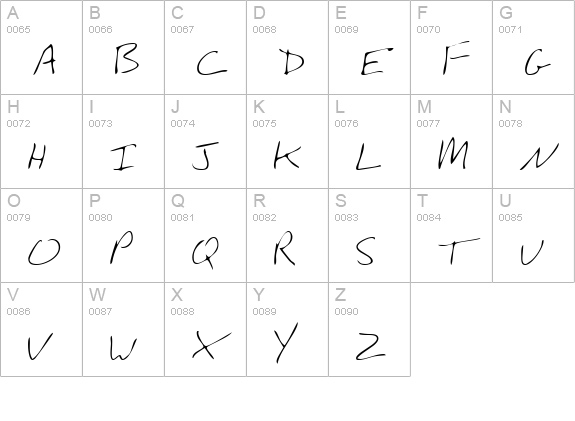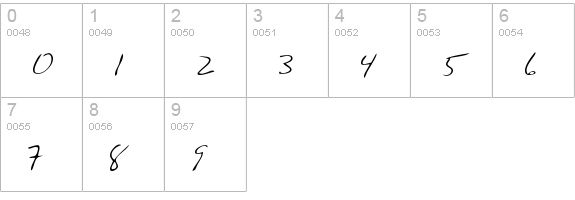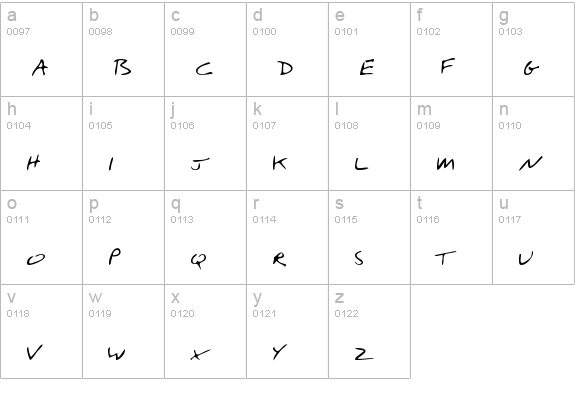
WalkersHand Regular Font Details
WalkersHand Regular is the standard, neutral variant in the WalkersHand typeface family \xE2\x80\x94 well suited to general body text, paragraphs, and standard typographic work.
WalkersHand Regular font is a stunningly elegant typeface that exudes sophistication and charm. It is a perfect choice for any design project that requires a touch of class and grace. With its delicate strokes and graceful curves, this font adds a sense of refinement to any text it adorns. One of the greatest features of WalkersHand Regular font is that it is freely available to download at FontsMarket.com. This means that you can easily access and use this beautiful font in your designs without any cost. Whether you are a professional designer or a hobbyist, this free font is a valuable addition to your collection. The versatility of WalkersHand Regular font is truly remarkable. It is equally at home in both print and digital media, making it a versatile choice for a wide range of projects. Whether you are designing a logo, a wedding invitation, a book cover, or a website, this font will elevate your design to a whole new level. The attention to detail in WalkersHand Regular font is truly remarkable. Every letter is carefully crafted to ensure maximum legibility and visual appeal. The proportions are perfectly balanced, creating a harmonious and pleasing aesthetic. With its clean and crisp lines, this font is a joy to work with. WalkersHand Regular font is the epitome of timeless beauty. Its classic design ensures that it will never go out of style, making it a wise investment for any designer. Whether you are working on a contemporary project or a vintage-inspired design, this font will always deliver. In conclusion, WalkersHand Regular font is a stunning typeface that exudes elegance and sophistication. Its timeless design and versatile nature make it a valuable asset for any designer. And the best part? It is freely available to download at FontsMarket.com, allowing you to enhance your designs without any cost. Don't miss out on this incredible font - get it now and elevate your designs to new heights.